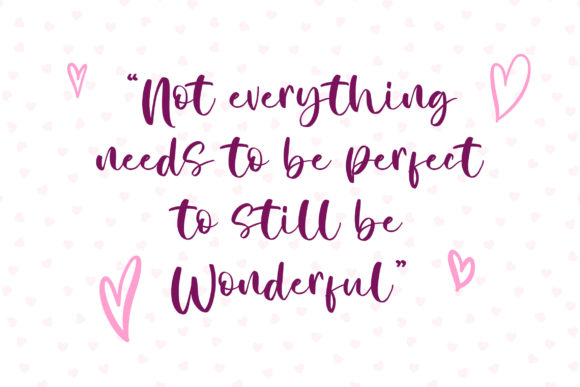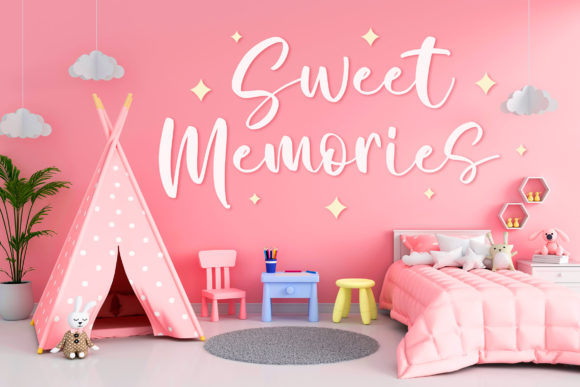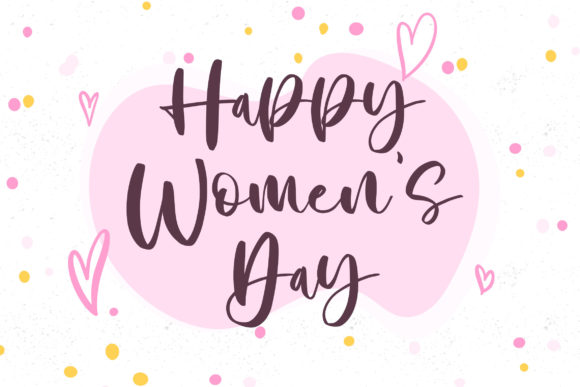
Introduction to Natusha Bayor Font
As a designer, there’s nothing quite like the thrill of discovering a new font that sparks creativity and inspires your next project. For me, that moment came when I stumbled upon the Natusha Bayor Font – a sweet and beautiful script font that has since become a staple in my design toolkit.
With its incredibly versatile style, Natusha Bayor Font is perfect for a wide range of creative projects, from beautiful wedding invitations to eye-catching social media posts. Its high-quality design makes it a valuable resource for designers, offering a transparent background and seamless integration into any design. Whether you’re looking for a free download or a premium design resource, Natusha Bayor Font is sure to deliver.
Whether you’re a seasoned pro or just starting out, this font is sure to elevate your designs and help you stand out from the crowd. In this article, we’ll take a closer look at the Natusha Bayor Font and explore its many uses and benefits.
Key Features of Natusha Bayor Font
- High-quality font design, perfect for creative projects that require a unique touch
- Features a unique, hand-drawn style that adds a personal touch to any design project
Honest Review: Natusha Bayor Font
I recently stumbled upon the Natusha Bayor Font, and I must say it’s a beautiful addition to any creative project. With a high quality design, this font is perfect for those who want to add a touch of elegance to their work.
What Works Well:✨
- High-quality design with a transparent background, making it perfect for layered designs.
- Great for use in creative projects, such as logo design, branding, and typography-based art.
One thing to note, however, is that the Natusha Bayor Font may not be suitable for all types of projects. ⚠️
Limitations:⚠️
- The font may not be as versatile as some other fonts on the market, making it less suitable for complex or multi-language projects.
- Some users may find the font’s design too ornate or over-the-top for certain applications.
Overall, I’m impressed with the Natusha Bayor Font. It’s a beautiful and high-quality design resource that’s perfect for those who want to add a touch of elegance to their work. With its transparent background and free download option, it’s an excellent choice for any creative project.
Tips for Getting the Most Out of Natusha Bayor Font
To get the most out of Natusha Bayor Font, use it on a transparent background to create a clean and modern design. This font is ideal for creative projects that require a unique and eye-catching typography. You can also use it as a design resource for branding, advertising, and other marketing materials.
Natusha Bayor Font is commonly used for creative projects, such as infographics, posters, and social media graphics. It’s also ideal for branding and advertising materials, such as logos, business cards, and brochures. With its high-quality design and transparent background, Natusha Bayor Font is a great addition to any design project.